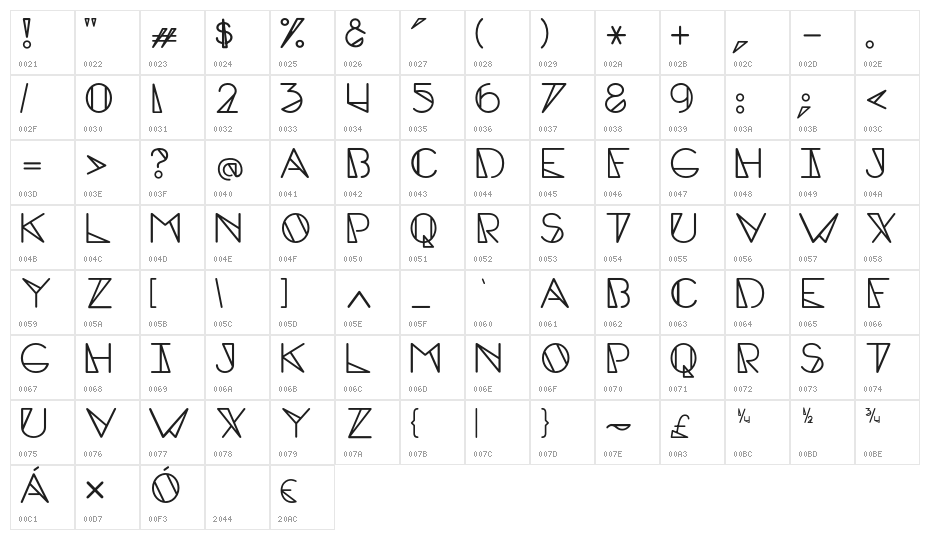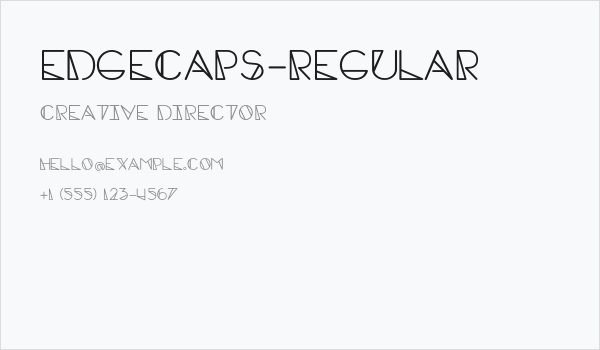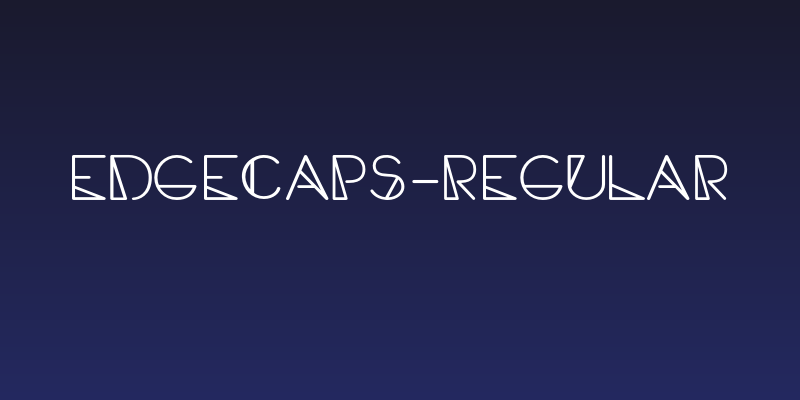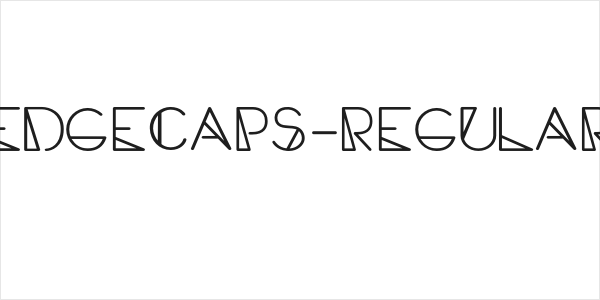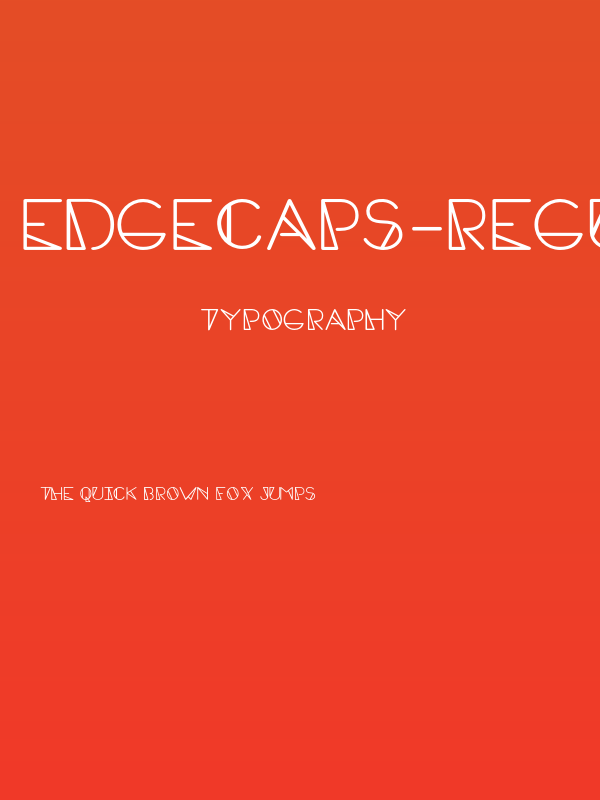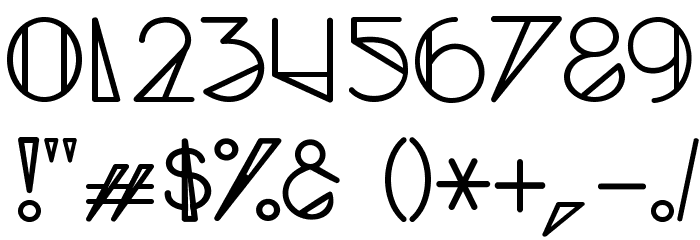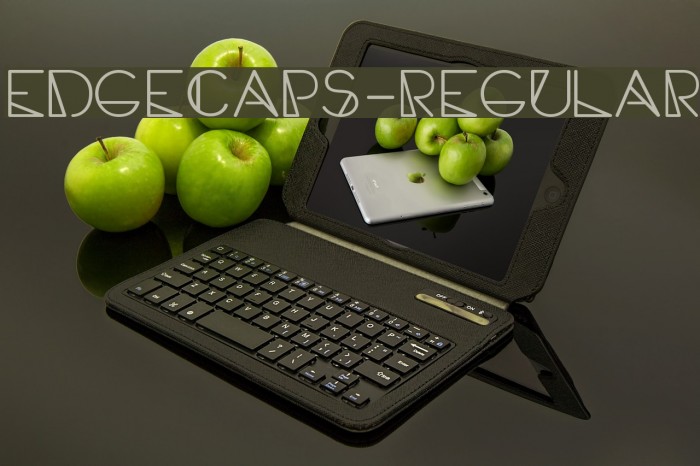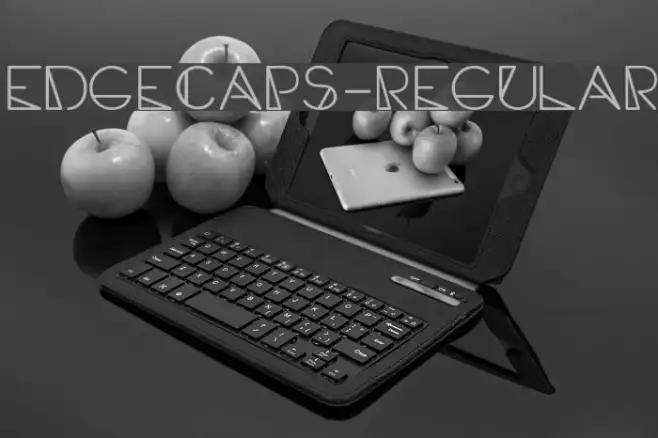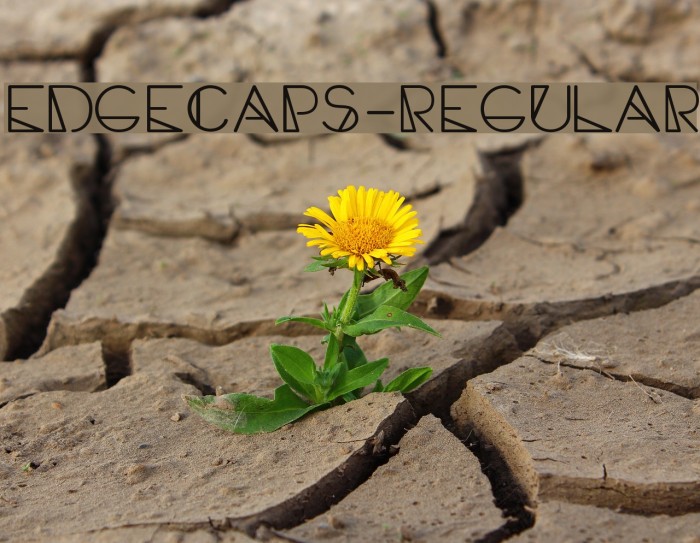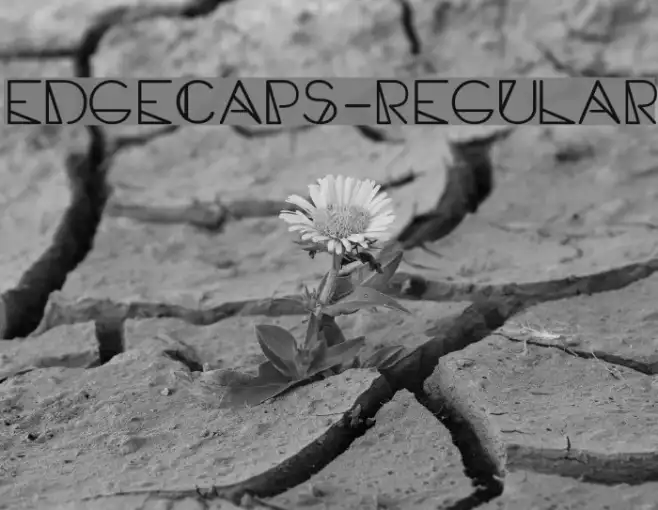
EdgeCaps-Regular Font
EdgeCaps-Regular Description
This font features a unique geometric design with sharp angles and clean lines, creating a modern and edgy appearance. The uppercase and lowercase letters maintain a consistent style, with each character incorporating triangular and linear elements that give it a distinct, futuristic look. The numbers and special characters follow the same design principles, ensuring uniformity across the entire set. The font's structure is bold and striking, making it ideal for projects that require a strong visual impact.
| Proposed Projects | Ideal for branding, posters, album covers, and any project needing a modern, edgy aesthetic. |